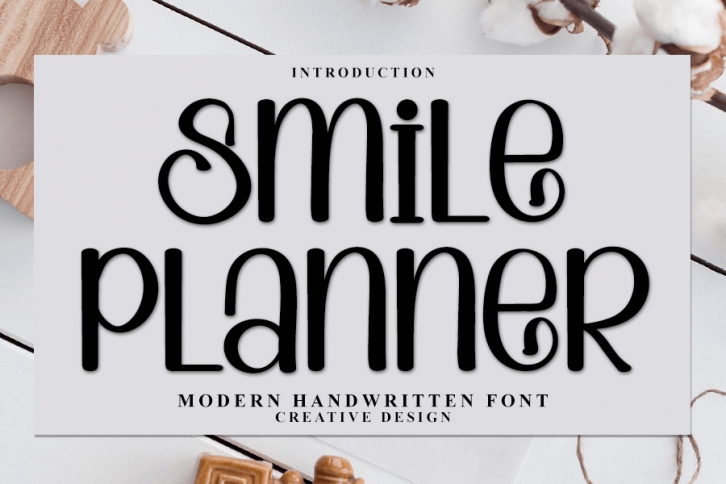
Smile Planner is a trendy handwritten font with a contemporary atmosphere and impeccable form, inspired by a timeless classic calligraphy. It will add elegance and class to any of your design projects. This font can be used to write various kinds of products according to the aspect of each need.